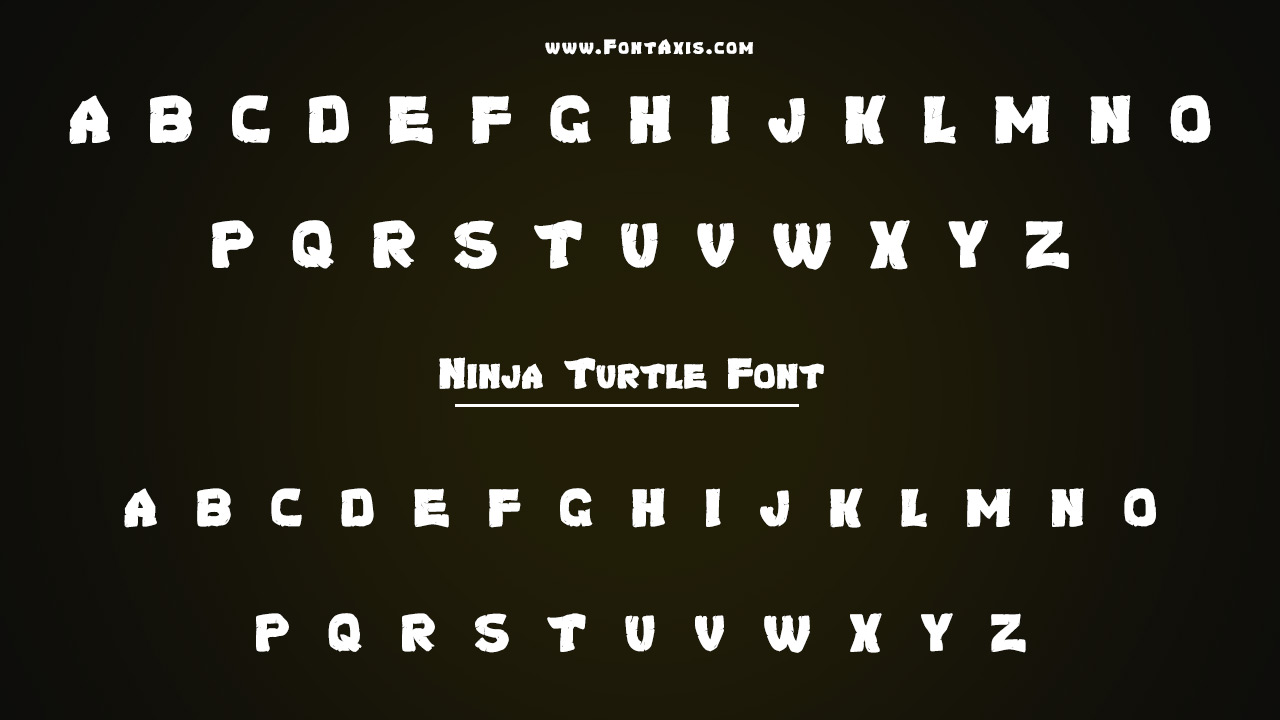
Ninja Turtle Font: Bold, Action-Packed Style For Your Designs
The Ninja Turtle Font is inspired by the iconic Teenage Mutant Ninja Turtles (TMNT), designed by Peter Laird and Kevin Eastman in 1984. This font captures the adventurous spirit of the anthropomorphic turtle brothers, making it perfect for comic and movie-related designs.
Created by Iconian Fonts and available for free personal use, the font includes bold, playful letterforms that mimic the bold, energetic style of TMNT. Whether for posters, logos, or fan art, this font gives your design the vibrant action-packed feel TMNT fans know and love.
Name Ninja Turtle Font
Style Display, Cartoon, Bold
Designer Iconian Fonts
Type Decorative, Display
• Ninja Turtle Regular
• Logos for TMNT-inspired designs
• Posters for action-packed or comic-themed events
• Fan Art related to TMNT, featuring the anthropomorphic turtle brothers
• Stickers and merchandise for fans of TMNT
• Banners and Signs for events or movie promotions
• Branding for businesses looking to adopt a fun, dynamic theme
• Icons for TMNT characters, such as Michelangelo, Leonardo, Donatello, and Raphael
• Character Maps in TMNT-related projects and designs
Pair Ninja Turtle Font with Open Sans for a modern, readable body text in posters or merchandise designs. Combine it with a Brush-style font for a more dynamic and action-packed visual.
The Ninja Turtle Font is a bold and dynamic typeface that perfectly captures the adventurous spirit of the Teenage Mutant Ninja Turtles. Designed for iconic cartoon and comic series fans, this font brings energy and fun to any project, from posters and logos to merchandise and fan art.
2.What Kind Of Designs Is The Ninja Turtle Font Best For?
The Ninja Turtle Font is ideal for designs related to the Teenage Mutant Ninja Turtles (TMNT) universe. Its bold, comic-inspired aesthetic makes it perfect for posters, logos, and fan art.
Additionally, it can be used for designing banners, event materials, or themed birthday invitations. This font’s energetic style brings a touch of nostalgia and excitement to projects, particularly those centered around superheroes or comic themes.
4.Does The Ninja Turtle Font Support Other Languages?
The font includes the standard English alphabet, Cyrillic characters, and some special symbols, making it versatile for many language needs.
However, it might not support extensive language scripts such as Arabic or Asian character sets. It’s recommended to review the font’s character map or glyph set beforehand to ensure it meets the requirements of your project, especially if it involves non-standard characters.